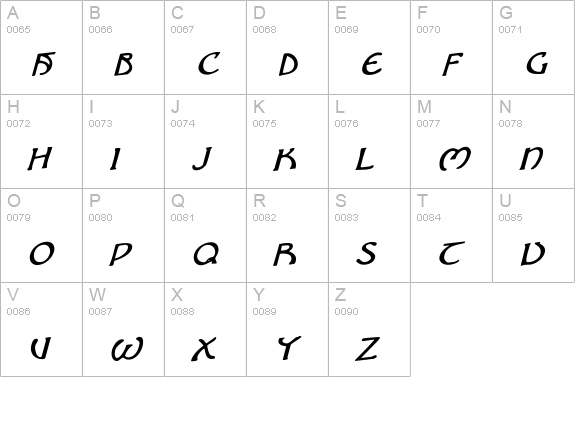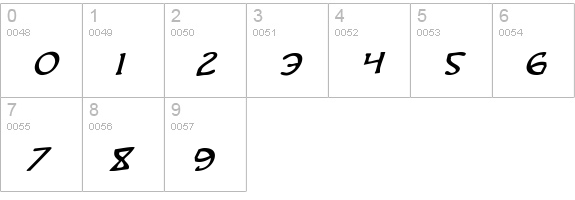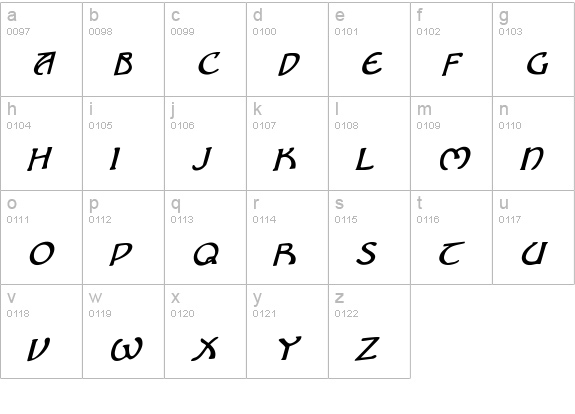
Brin Athyn Rotalic is a elegant and sophisticated font that exudes a sense of timeless charm and modern flair. Its sleek and flowing design is perfect for adding a touch of luxury to any project. The slanted italic style of Brin Athyn Rotalic adds a sense of movement and dynamism, making it ideal for conveying a sense of energy and creativity. What sets Brin Athyn Rotalic apart is that it is not only visually stunning, but also free for personal and commercial use. This means that you can use this beautiful font in all your projects without any restrictions. Brin Athyn Rotalic is freely available to download at FontsMarket.com, where you can easily access this versatile and stylish typeface to elevate your designs to the next level. Don't miss out on the opportunity to add Brin Athyn Rotalic to your font collection today!